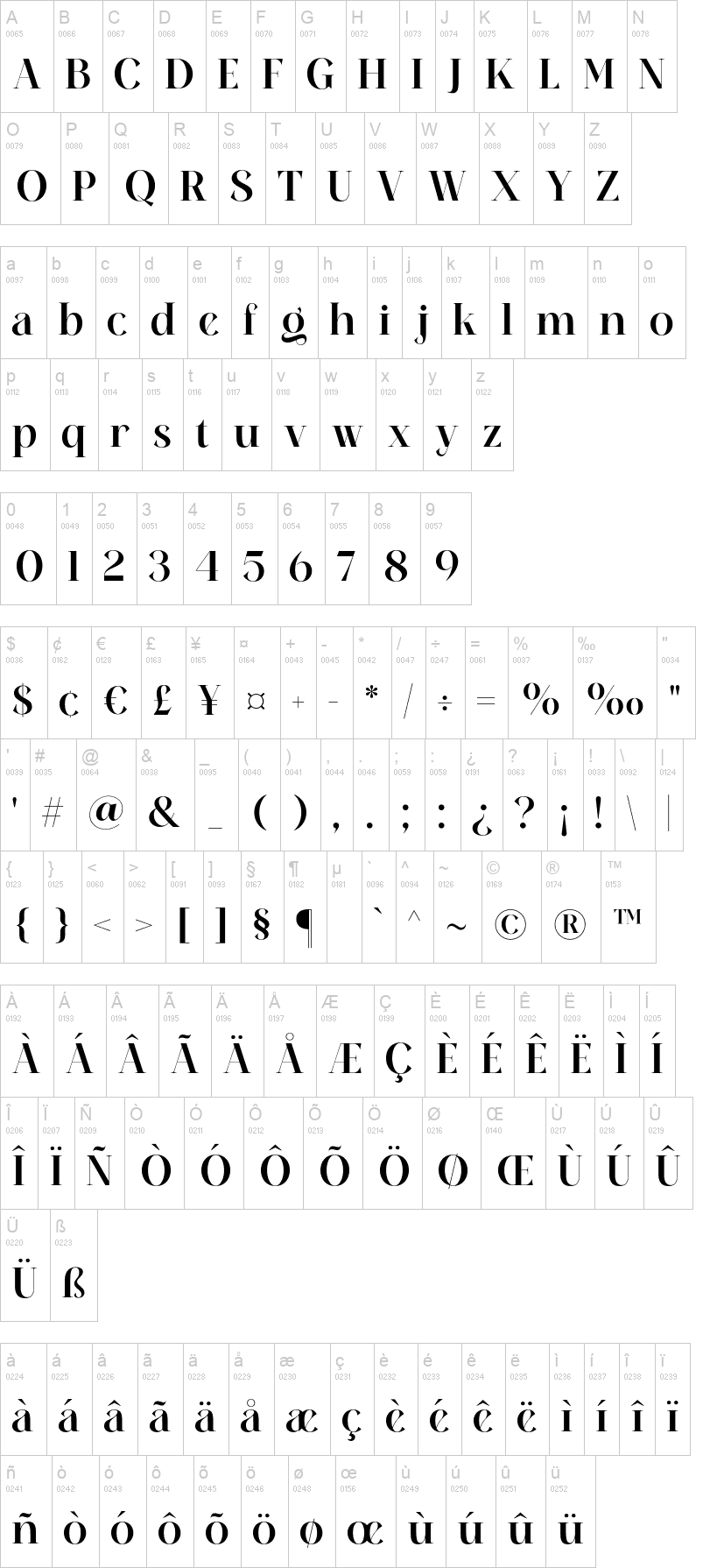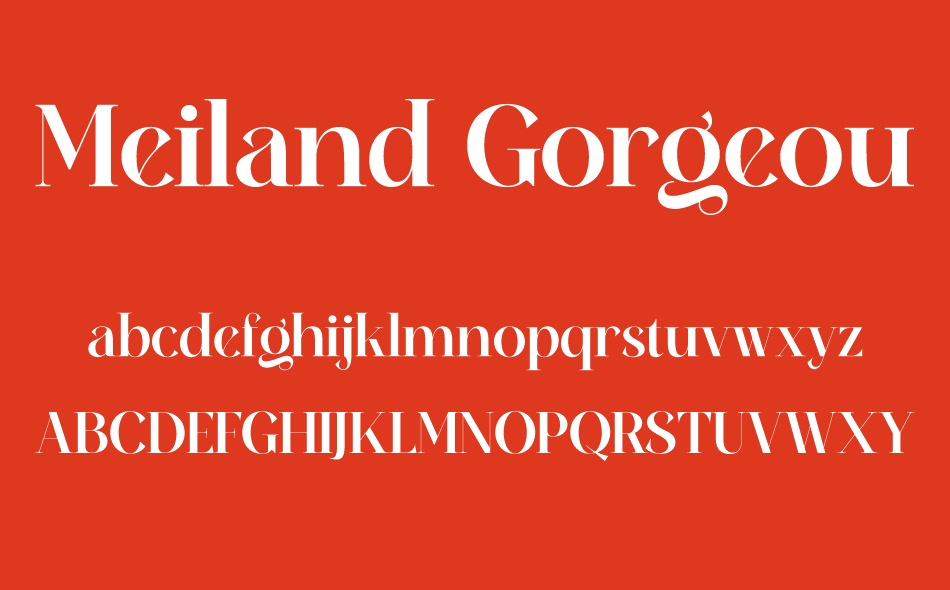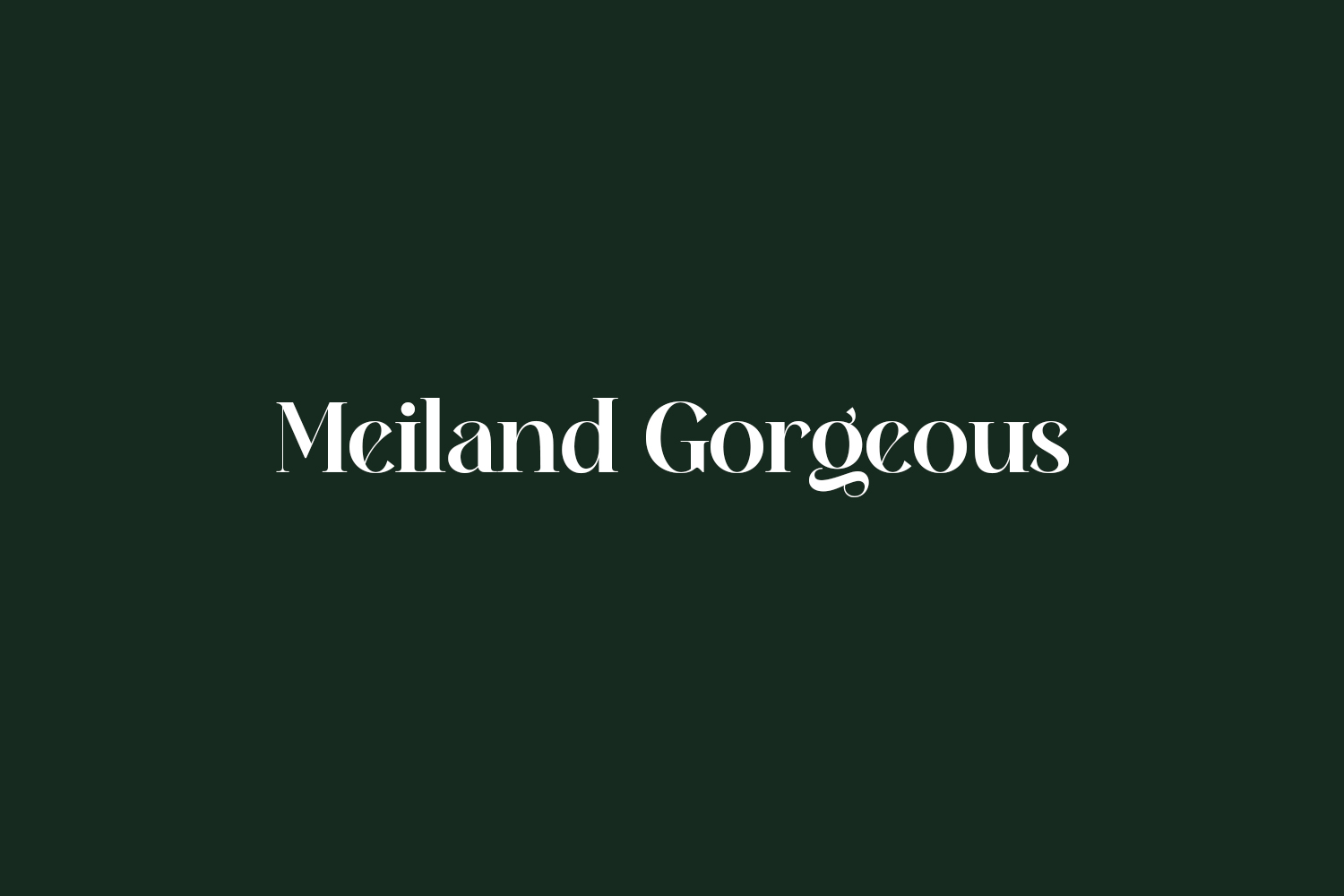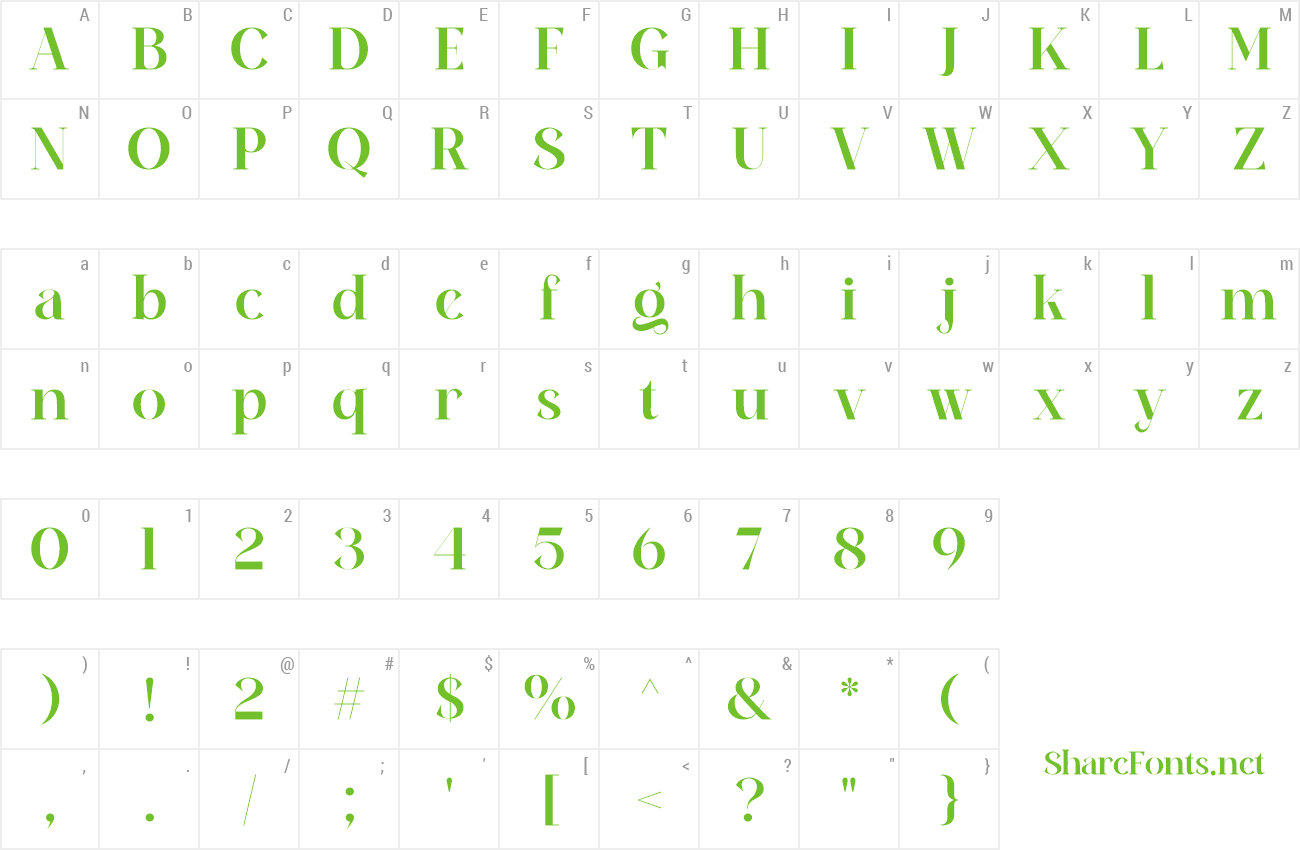
Meiland Gorgeous Font
Meiland Gorgeous Font - Moreover, you can embed it. Web meiland gorgeous serif font. This font is a sophisticated serif with unique letterform. Web meiland gorgeous à € by handpik. It has many beautiful ligatures. Web meiland gorgeous font download.
Web meiland gorgeous serif font. Moreover, you can embed it. Web meiland gorgeous font download. This font is a sophisticated serif with unique letterform. It has many beautiful ligatures. Web meiland gorgeous à € by handpik.
Web meiland gorgeous serif font. This font is a sophisticated serif with unique letterform. Web meiland gorgeous font download. Moreover, you can embed it. Web meiland gorgeous à € by handpik. It has many beautiful ligatures.
Moreover, you can embed it. Web meiland gorgeous à € by handpik. Web meiland gorgeous serif font. It has many beautiful ligatures. Web meiland gorgeous font download.
Meiland Font
Web meiland gorgeous font download. Web meiland gorgeous à € by handpik. It has many beautiful ligatures. Web meiland gorgeous serif font. Moreover, you can embed it.
It has many beautiful ligatures. Web meiland gorgeous font download. Web meiland gorgeous à € by handpik. Moreover, you can embed it. Web meiland gorgeous serif font.
Moreover, you can embed it. Web meiland gorgeous serif font. Web meiland gorgeous font download. Web meiland gorgeous à € by handpik. It has many beautiful ligatures.
This font is a sophisticated serif with unique letterform. It has many beautiful ligatures. Moreover, you can embed it. Web meiland gorgeous serif font. Web meiland gorgeous font download.
Web meiland gorgeous serif font. Web meiland gorgeous à € by handpik. Web meiland gorgeous font download. It has many beautiful ligatures. This font is a sophisticated serif with unique letterform.
Moreover, you can embed it. Web meiland gorgeous à € by handpik. It has many beautiful ligatures. This font is a sophisticated serif with unique letterform. Web meiland gorgeous font download.
Web meiland gorgeous font download. Web meiland gorgeous serif font. Web meiland gorgeous à € by handpik. This font is a sophisticated serif with unique letterform. Moreover, you can embed it.
Meiland font
Web meiland gorgeous font download. Web meiland gorgeous serif font. This font is a sophisticated serif with unique letterform. It has many beautiful ligatures. Web meiland gorgeous à € by handpik.
Web Meiland Gorgeous À € By Handpik.
Moreover, you can embed it. Web meiland gorgeous serif font. Web meiland gorgeous font download. It has many beautiful ligatures.